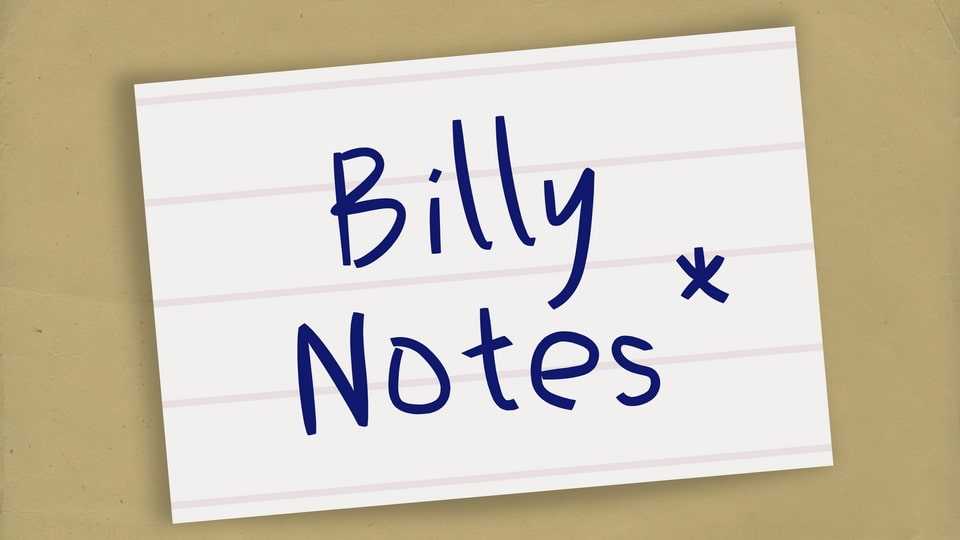
Download Billy Notes font, a playful and cute handwritten typeface designed to bring charm and warmth to your notes. It features soft, rounded letterforms with a friendly and approachable style that feels personal and fun.